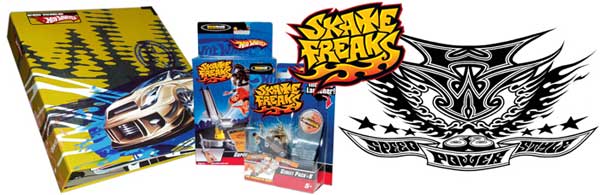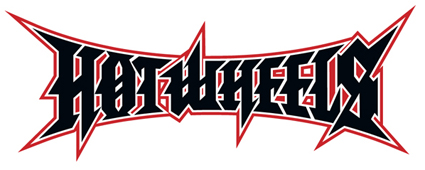
CARS, SKULLS, FLAMES AND Kustom Letters.
For 15 years, Dave Parmley and Eric Ruffing have been holding things down in the Action Sports, Entertainment, and Gaming Industries, leading 13THFLOOR Design with a mix of youthful exuberance and a commitment to Keeping things Kustom—they spell it with a K.
“We don’t stress, it’s fun,” says Ruffing. “But we take what we do very seriously for ourselves and the client’s sake.”
Parmley was working as Design Director at surf giant O’Neill in the early ’90s when he hired Ruffing. The two bonded quickly.
“Eric and I have always worked really well together—no ego, best idea wins,” Parmley says. “We found this chemistry…and that’s a big reason we started 13THFLOOR together.”
13THFLOOR has emerged as a go-to resource among Action Sport companies, and both Ruffing and Parmley continue to mountain bike, bmx, and surf the breaks in Orange County, CA, staying in touch with their core audience.
Lately, they’ve been doing a lot of work for Mattel, Hot Wheels, Harley Davidson, X-Games, and Fox Sports. With each piece, they set out to create Kustom Letters.
“We must create our own type solutions,” Ruffing says. “No fonts.”
So you guys left O’Neill and decided to work for yourself. What factors led you to do that?
Eric: I left first, then Dave left about 6 months after me.
Dave: It was time to move on—we had done a LOT there and the surf industry life-cycled, O’Neill was having some problems and the creative opportunities weren’t as ripe as the previous years. As a friend of mine once said, “When it ain’t fun anymore, it’s time to leave.”
Why 13THFLOOR, the name?
Eric: It was a name we had come up with for a client (EA) who decided not to use it so we liked it and kept it. We also hate designers who use their own name. Not very creative and too egocentric for us.
Dave: We love the inane superstition of the No. 13. People think by naming it the 14th floor, it somehow is no longer the 13th floor. Don’t bungie jump by floor count!
How has your work progressed over the last 10 years, and why is Kustom so important to you guys?
Eric: I think the market allows for more freedom than it did 10 years ago. Also so much has been done already. We try to push ourselves while developing and maintaining what we think is our unique look.
Dave: We’ve always tried to be original in our lettering solutions. We love lettering and logo design. Depending on the needs of the client and the lettering style that works, we always try to be genuinely unique in whatever we do.
Eric: We still get hyped on all the great design that’s coming out and it influences us to push our work.
Typically, what’s your process with your lettering? Paper and pencil, all digital?
Dave: Paper! Paper! Paper! Learn to draw! That’s what puts the K in KUSTOM!
Eric: Whatever works, twigs on paper, tape, computer. I choose the tool that will get my idea out the best way and closest to what’s in my head.
Dave: It all ends up on the computer in the end! Start on the computer if that’s the look you want—we do when it’s right for the job. Lots of tools to create with!
What are your influences from a design and lettering standpoint?
Dave: Look around—it’s EVERYWHERE! Kind of amazing that it all looks the same now. That’s what we like about the skateboard market—it’s a lot more brand-related art that’s actually unique to the brand.
Eric: For me it’s anything emotional. For me personally it’s paintings (Motherwell, Kline), taggers and graffiti. Also huge influences from childhood: reading Hot Rod Mags, Ed Roth, Racing logos. The general humor that was popular in the branding of the 70′s motorsport era.
Dave: I’m a freak about anything that has f-l-o-w. I dig 60′s psychedelic rock poster lettering, and the 70′s fat style and all of the interpretations and evolutions of these in today’s lettering design. Tats, Flames Hot Rods.
You guys work with clients that allow a lot of custom work. What has the Mattel/Hot Wheels experience been like so far?
Eric: It’s been great. A dream come true. They first asked us to create a lifestyle story for their style guide, Urban, Action Sports, and Race-themed collections. After our first guide, they asked us to come in and be in charge of their Licensing division. I took the job. I was Senior Design Manager of Global Licensing. Basically responsible for all artwork of the licensing guides, about 200-300 pieces per guide, two times a year. 13THFLOOR stayed on as vendor. We had total creative control. It was really important to me (and Dave) that we addressed the trends but also made them unique and ownable to Hot Wheels.
Dave: Hot Wheels has been REALLY cool because we get to do a lot of what we love to do—cars and smoke and flames and Kustom. We have concentrated on maximizing the ability of our designs to become a family in their use for a wide range of applications that licensing requires. We’ll do a design that can be a composed graphic, break out into separate stand-alone designs, become simplified icons, and also create patterns out of these elements.